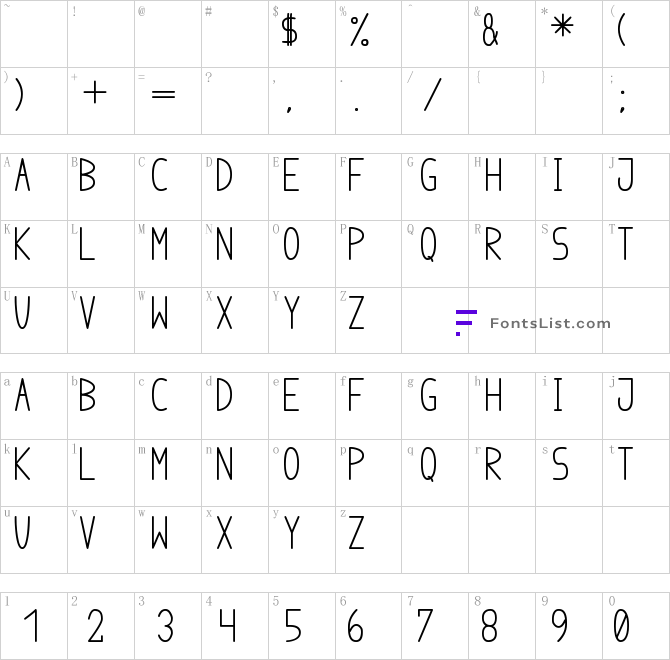
- Font Name:anome ibul bold
anome-ibul-bold.ttf is a very beautiful artistic font, anome-ibul-bold.ttf is widely used in the design and printing of various books and pictures,anome-ibul-bold.ttf has a strong visual impact,anome-ibul-bold.ttf is a commonly used font in newspapers, magazines and books, and is used in posters, e-commerce Poster design, store design, logo design, font design and other fields.anome-ibul-bold.